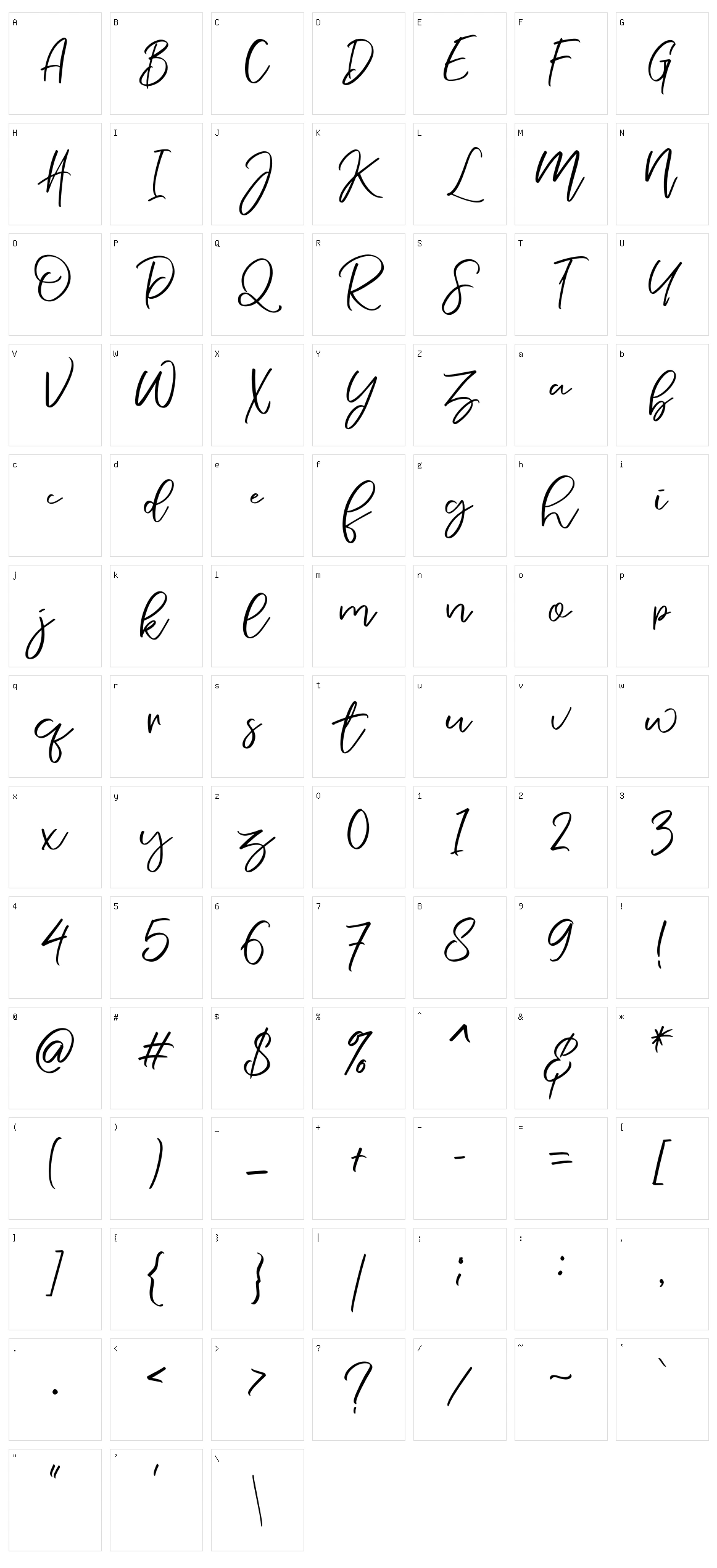
Introducing NERMOLA Scripcy Font from alitdesign.
The rise of font duo in the market makes us also do not want to be left behind to play in the font duo. The font duo that we launch is sans serif style and signature script style.
NERMOLA Scripcy font on sans serif has characteristic that are unique, elegant, formal and assertive. It is suitable for header or sub header of a text. On the uppercase it looks very unique and elegant. While the script letters also have a unique and natural characteristic. In addition it has several alternatives that can be replaced on the opentype option.
NERMOLA Scripcy font is perfect you have as an additional reference and collections in your font library. Because it is suitable for the design of logotype design, the design has an elegant and romantic concept, and for the design of lettering quote.